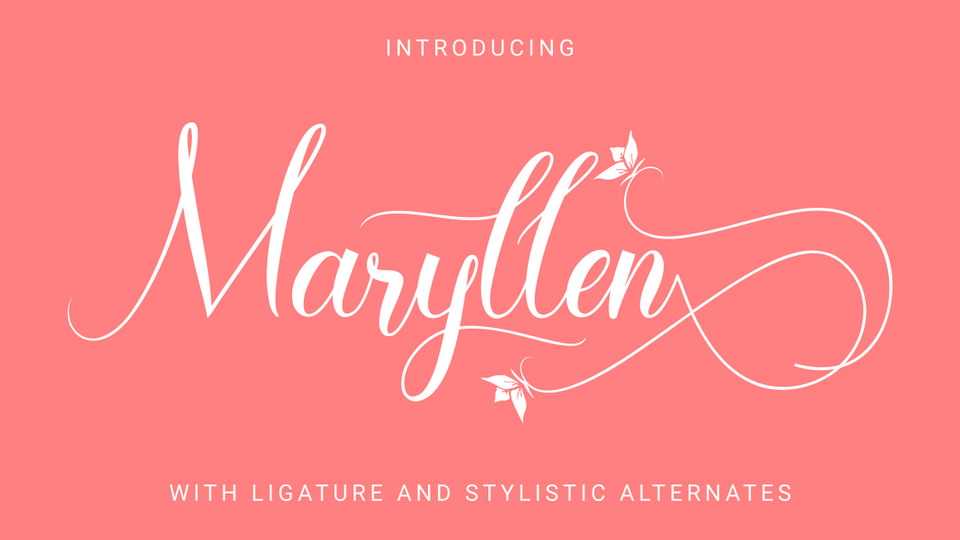
Download Maryllen font, a fancy modern calligraphy script with elegant swashes. Great for personal branding, wedding and romantic designs, crafts and more.
Designer: Makashi